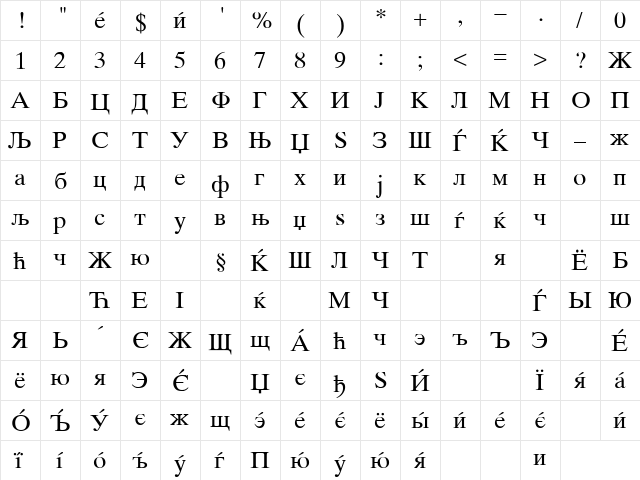
Mak_TimesNM Regular
Design Context for Mak_TimesNM Typeface
Mak_TimesNM is a composed and adaptable typeface that performs quietly and consistently across a wide range of design contexts.